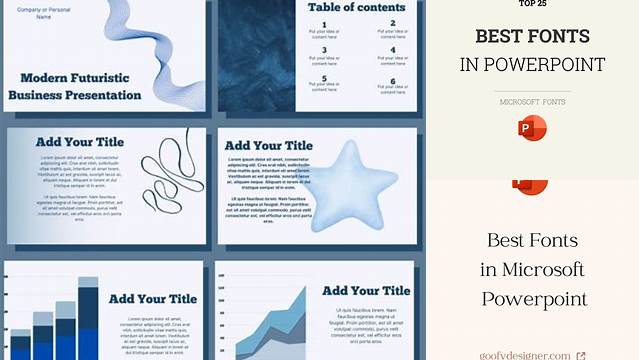
Aesthetic Powerpoint Fonts: Your Guide To Stunning Slides
Hey guys! Ever feel like your PowerPoint presentations are, well, a little blah? You're not alone! We've all been there. But fear not, because the secret sauce to a truly captivating presentation often lies in the aesthetic powerpoint fonts you choose. Forget those boring, default options! In this guide, we're diving deep into the world of fonts that will transform your slides from drab to fab. We'll explore everything from finding the perfect font pairings to incorporating them effectively, ensuring your message not only gets across but does so with style and flair. Get ready to say goodbye to font fumbles and hello to presentations that wow!
Aesthetic Powerpoint Fonts: Why They Matter
So, why bother with aesthetic powerpoint fonts in the first place? Think of your presentation as a visual story. The words are the plot, the images are the characters, and the fonts? They're the voice and tone of your story. The right font can set the mood, reinforce your message, and make your presentation more memorable. The wrong font, on the other hand, can distract your audience, make your content look cluttered, and even undermine your credibility. Choosing the right font is about creating an immersive experience. It's about guiding your audience's eye, highlighting key information, and ultimately, helping them connect with your ideas on a deeper level. Think of it like this: You wouldn't wear a t-shirt to a black-tie event, right? Similarly, you wouldn't use Comic Sans for a serious business presentation. It's about aligning the font with your content and your audience. When selecting fonts for your PowerPoint, consider the purpose of your presentation, your target audience, and the overall aesthetic you want to achieve. A playful font might work wonders for a children's workshop, while a clean, professional font is more appropriate for a corporate report. When selecting the ideal aesthetic powerpoint fonts consider the following key aspects: It's also crucial to remember that font choice is a reflection of your brand. Your font choices can communicate professionalism, creativity, or even a sense of fun. Making the right selection can significantly enhance your PowerPoint's appeal. So, take some time to explore various options and discover what best aligns with your goals.
Aesthetics and Visual Appeal
Aesthetic powerpoint fonts are critical for visual appeal. The visual appeal of your presentation directly impacts how your audience perceives your message. A well-chosen font creates a sense of harmony and balance, making your slides more enjoyable to view. Different fonts evoke different emotions and convey different messages. Using an inappropriate font might clash with the overall feel and could make your audience less likely to pay attention. Careful font selection ensures that your presentation is visually pleasing and engaging. The right fonts will highlight your message and make it easier for your audience to process information. Choosing a font with appealing visuals is about more than just making your presentation look pretty. It's about creating a cohesive and consistent visual identity that reinforces your brand or message. Consider your target audience and choose a font that resonates with them. Different fonts suit different presentations. Selecting fonts is important for creating an aesthetic. The right font can make your slides stand out and leave a lasting impression. Remember that it's not just about finding a font you like. It's about finding a font that complements your content and enhances its effectiveness.
Enhancing Readability
Another important aspect of aesthetic powerpoint fonts is readability. The ease with which your audience can read your text is paramount. Readability ensures that your audience can quickly grasp the main points of your presentation. Choosing a font that is easy to read, especially from a distance, is crucial for effective communication. Fonts that are too stylized or cluttered can be difficult to read, causing frustration and disengagement. A legible font makes it easier for your audience to follow along and understand your message. Ensuring your audience can easily read the font is crucial. Legibility directly impacts how your audience receives your message. Select fonts that are clear and uncluttered, particularly for body text. When choosing a font, consider factors like size, spacing, and weight. The readability of your PowerPoint presentation is vital for its overall success. High readability means a better understanding of your content and more audience engagement. Choose your fonts wisely, keeping readability in mind, to maximize the impact of your presentation.
Impact on Audience Engagement
The right aesthetic powerpoint fonts have a direct impact on audience engagement. The font you choose can influence your audience's attention and interest. Using appropriate fonts helps maintain and increase your audience's level of interest. A well-chosen font can make your presentation more visually appealing and engaging. Fonts that reflect your presentation's tone and content can create a cohesive and immersive experience. The right font helps draw your audience in and keeps them invested in your message. In contrast, a poorly chosen font can distract your audience and hinder engagement. Therefore, it's crucial to select fonts that resonate with your content and audience. Different fonts suit different presentations, but selecting a font is important for creating an aesthetic. The right font can make your slides stand out and leave a lasting impression. Remember, it's not just about finding a font you like. It's about finding a font that complements your content and enhances its effectiveness.
Finding the Perfect Aesthetic Powerpoint Fonts: Where to Look
Alright, so you're ready to dive into the world of aesthetic powerpoint fonts. Where do you even begin? Don't worry, I got you covered. You have to consider the following factors to find the perfect fonts. There are so many places to find fonts, so you'll never be short of choices:
Built-in PowerPoint Fonts
PowerPoint itself has a great selection of pre-installed fonts, perfect for getting started. PowerPoint comes with a variety of fonts. These built-in fonts are already optimized for the platform, ensuring good readability and compatibility. You can access these fonts directly from the font menu within PowerPoint. Often, you can find a perfect font without ever leaving PowerPoint. These fonts are designed for professional presentations and are generally safe to use. Consider exploring these options before looking elsewhere. Built-in fonts are an easy way to quickly get started and are usually very reliable. By using the built-in fonts, you avoid the hassle of installing fonts, and you'll save time. Explore them and find what suits your needs. Also, these fonts are designed for presentation. The most important advantage is their built-in nature, allowing you to start immediately. Always explore the built-in fonts before looking elsewhere. These fonts offer a solid foundation for any PowerPoint presentation. They are generally safe to use and compatible with any version of PowerPoint. Using them simplifies the process. The wide variety makes it easy to find a font that fits your presentation perfectly.
Google Fonts for Aesthetic Flair
Google Fonts is a treasure trove of free, open-source fonts that are perfect for adding aesthetic powerpoint fonts. You can easily browse, download, and use these fonts in your presentations. Google Fonts offers an extensive library of font styles, from classic serifs to modern sans-serifs, allowing you to find the perfect font for your style. The fonts are optimized for web use, meaning they are also well-suited for on-screen display. Using Google Fonts gives you a wide range of stylish and readable options. Google Fonts allows you to add a unique and personalized touch to your PowerPoint. Downloading and installing fonts is an easy process. These fonts will significantly enhance the visual appeal. With Google Fonts, you can experiment with different fonts until you find the perfect fit for your presentation. The huge variety makes it easy to discover the perfect font. Google Fonts ensures high readability and visual appeal. They are free, open-source, and offer countless possibilities for your presentation. With the wide array of styles available, there's a font for every need. Using Google Fonts is a great way to get creative with your presentation's design. With Google Fonts, your presentations can stand out from the crowd. The vast collection gives you plenty of choices, so you can design a truly unique PowerPoint presentation.
Premium Font Resources
If you're looking for even more unique aesthetic powerpoint fonts with professional design, consider premium font resources. Paid font resources offer a wider selection of styles. These resources often include specialized fonts and curated collections. Premium fonts can elevate your presentation and give it a polished look. They often come with licensing and support. Investing in premium fonts can enhance the overall look of your presentation. You get access to a wide array of high-quality, professionally designed fonts. These fonts are crafted to make your presentation stand out. You will have access to a wide range of options and greater design quality. Explore resources that offer unique fonts for a distinctive look. Some fonts offer advanced features that are unavailable elsewhere. The variety allows you to find the perfect font for your specific needs. Premium fonts will enhance the professional quality and visual appeal of your work. Consider looking into this premium option to get top-quality aesthetic powerpoint fonts.
Pairing Aesthetic Powerpoint Fonts: Dos and Don'ts
Choosing the right aesthetic powerpoint fonts isn't just about picking a single font. It's often about finding the perfect pairings. A well-matched font pairing creates visual harmony and reinforces your message. So, let's explore some essential dos and don'ts. Finding the perfect pairing involves considering different fonts that complement each other. Pairing fonts involves a mix of art and science. Here's how you can create a visual balance and a cohesive design.
The Art of Font Pairing
Font pairing is a skill that, when mastered, will elevate your PowerPoint presentations. The right aesthetic powerpoint fonts create harmony and visual interest. Font pairing is about selecting fonts that complement each other, balancing style and readability. Consider the contrast and how the fonts interact. Look for fonts with different styles and weights. Experiment with various combinations to find what suits your presentation. Experiment with different pairs and combinations. The art of font pairing ensures that your presentation is both readable and visually appealing. Good font pairings can highlight key information. Remember to test your pairings on real content to see how they perform. Perfecting font pairings enhances the aesthetic value. The ultimate goal is to choose fonts that support your content and engage your audience. The perfect font pairing is an art form that significantly improves your presentation.
Contrast and Harmony in Font Combinations
When selecting aesthetic powerpoint fonts, contrast and harmony are your best friends. Using contrasting fonts can add visual interest and make key information stand out. Balance is key, as too much contrast can be jarring and too little may make your presentation appear dull. Harmonious font pairings create a cohesive and visually appealing presentation. Create a balance between these two elements for an effective design. Consider the weight, style, and size of each font in your pairing. Use a heavier font for your headings and a lighter font for your body text. When choosing fonts, consider these aspects to keep the balance. Using contrast ensures that key information stands out. Harmonious font pairings create a cohesive and appealing presentation. Always strive to balance contrast and harmony to achieve the right aesthetic.
Avoiding Common Font Pairing Mistakes
Alright, let's talk about the mistakes to avoid when pairing your aesthetic powerpoint fonts. A few common blunders can ruin even the best presentations. One common mistake is using too many fonts. Stick to a maximum of two or three fonts to maintain visual consistency. Choosing fonts that clash in style or personality can be a major pitfall. Avoid pairings that are too similar or that compete for attention. Also, make sure your fonts are readable in different sizes. Always check your font pairings on real content. Take time to review font pairing to ensure the best outcome. Avoid creating an amateurish look by avoiding these mistakes. By knowing what to avoid, you can ensure that your presentations look polished. Avoiding mistakes will increase the quality of your presentation.
Tips for Implementing Aesthetic Powerpoint Fonts Effectively
So, you've found some amazing aesthetic powerpoint fonts and have selected your pairings. Now, let's get into how to use them effectively in your presentations. It's about more than just picking fonts; it's about how you use them to enhance your message. Apply these tips so that your presentation looks the best it can be.
Font Hierarchy and Emphasis
Font hierarchy is a crucial aspect of using aesthetic powerpoint fonts effectively. Creating a clear font hierarchy guides your audience's attention and makes your content easy to follow. Use different font sizes, weights, and styles to distinguish between headings, subheadings, and body text. Make your most important information stand out. Use a larger, bolder font for your titles and headings. Use a smaller, lighter font for your body text. Consider using italics or different colors for emphasis. A well-defined hierarchy creates a visual structure. A good hierarchy improves readability. Font hierarchy is an effective way to guide your audience's attention. Make your presentation easier to follow by creating a visual structure. With a clear font hierarchy, you can improve the impact of your presentation. Creating a font hierarchy makes your presentation easier to understand. Implement a font hierarchy to help your presentation.
Maintaining Consistency in Font Usage
Consistency is key when using aesthetic powerpoint fonts. It's important to maintain a consistent font style throughout your presentation. Select a set of fonts and stick to them, so your presentation has a cohesive look. Use the same fonts for headings, subheadings, and body text on all slides. Ensure that the fonts are consistent across your slides. Consistent font usage makes your presentation look professional. Inconsistent font usage can confuse your audience and make your presentation look amateurish. Use the same font for your headings, subheadings, and body text. Make sure that all fonts are uniform for a professional look. Maintaining consistency will improve the quality of your presentation. Ensuring uniformity creates a professional and polished presentation. A cohesive look will ensure that your presentation has a consistent look.
Font Size and Spacing for Readability
When implementing aesthetic powerpoint fonts, focus on size and spacing. It's critical for readability, so your audience can easily see your content. The ideal font size will depend on the screen size and viewing distance. Aim for a font size that is large enough to read from the back of the room. Ensure appropriate spacing between lines of text and between words. Make sure your text is readable from a distance. A good font size is vital for an effective presentation. Always check that the font is readable, regardless of the display. Adjust the font size for each slide and content. Use the right font size to make your text easy to read. Good spacing between words and lines of text is key. The right font size and spacing ensure readability. Focus on size and spacing for an effective presentation.
Advanced Tips for Aesthetic Powerpoint Fonts
Ready to take your presentation game to the next level? Let's dive into some advanced tips for aesthetic powerpoint fonts. These strategies will help you create truly outstanding presentations. So, try these advanced tips and become an expert on PowerPoint presentations.
Using Font Styles for Visual Interest
Using font styles is a great way to create visual interest. Using bold, italic, and underline will help emphasize key points and add interest. Use different font styles carefully to highlight key information. Use bold fonts for headings and important words. Use italic fonts for emphasis or quotes. Underline only when necessary, as overusing it can be distracting. Experiment with different styles to add a unique look. Using font styles in the right way will create a dynamic presentation. The correct use of font styles will grab the audience's attention. Using font styles gives you a creative way to make your presentation stand out. Font styles are key to improving the presentation's overall design. Font styles make your presentation look better.
Color and Font Integration
Color and font integration is a powerful technique for enhancing the impact of your presentations. Pairing aesthetic powerpoint fonts with the right colors will elevate your presentation's look. Select colors that complement your fonts and reinforce your message. Consider the colors of your brand when selecting fonts. Use color to create visual contrast and draw attention to specific elements. Carefully choosing colors and fonts adds visual interest. Use color to create a cohesive and visually appealing presentation. The right combination of color and font can make a presentation unforgettable. The combination enhances the look. Use the right color and font for a winning presentation. Colors enhance the visual and emotional impact of your presentation. Color and font are essential to improve your presentation.
Customizing Fonts for Branding
Customizing aesthetic powerpoint fonts can help you create a unique look. If you want your brand to be recognizable, make the best choice of fonts for it. Consider modifying fonts to suit your needs and brand identity. If you use your logo, customize the fonts to match. A custom font will help make your presentation stand out. Make sure that all fonts are well-matched for your brand image. Create a font style that is consistent with your brand identity. When customizing your fonts, make sure that they are still readable. Custom fonts are an easy way to make your presentation more professional. Your presentation will look more professional when you use custom fonts.
Common Mistakes to Avoid with Aesthetic Powerpoint Fonts
Even the best presentation can be ruined by common font mistakes. Let's explore some of the pitfalls you should avoid when using aesthetic powerpoint fonts. So, you can make a great presentation, with all the information to ensure the best outcome.
Overusing Different Fonts
One of the most common mistakes is overusing different fonts. Using too many fonts will make your presentation look cluttered and unprofessional. Stick to a maximum of two or three fonts. Too many fonts will distract your audience and undermine your message. Use a consistent font style across your presentation. Overusing fonts can distract your audience and make your presentation look messy. If you use too many different fonts, the presentation will look unprofessional. A consistent font choice will improve the quality of your presentation. The more fonts you use, the more difficult it will be to read your presentation. Always use a consistent font choice for your presentation.
Choosing Fonts That Are Hard to Read
Another mistake is selecting aesthetic powerpoint fonts that are hard to read. Always prioritize readability when choosing fonts. Fonts that are too stylized or small will make your presentation hard to understand. Choose fonts that are clear and legible. Make sure the font is easily readable from a distance. Always consider the screen size and viewing distance. Readability is important for an effective presentation. The audience will not understand your presentation if the font is hard to read. Avoid fonts that are too fancy and hard to read. Ensure your font is legible by testing it before presenting.
Ignoring Font Licensing and Copyright
Ignoring font licensing and copyright can lead to serious legal issues. Many fonts come with specific licensing agreements that determine how they can be used. Always check the terms of the license before using a font. Many fonts are free for personal use only, and if you are presenting for commercial purposes, it can be problematic. Some fonts require a license if used in commercial presentations. Ensure that you have the right to use the fonts in your presentation. Always abide by copyright laws when using fonts. If you do not follow the rules, you can face copyright issues. Make sure that you have the necessary rights to use the font. Always follow the licensing and copyright rules for fonts.
Conclusion: Powering Up Your Presentations with Aesthetic Powerpoint Fonts
So, there you have it! You're now armed with the knowledge to choose and use aesthetic powerpoint fonts like a pro. Remember, the right font can transform your presentation from boring to brilliant. By paying attention to font pairings, readability, and consistency, you can create presentations that not only inform but also engage and inspire your audience. So go forth, experiment with different fonts, and create presentations that truly stand out! Your audience and your message will thank you for it.